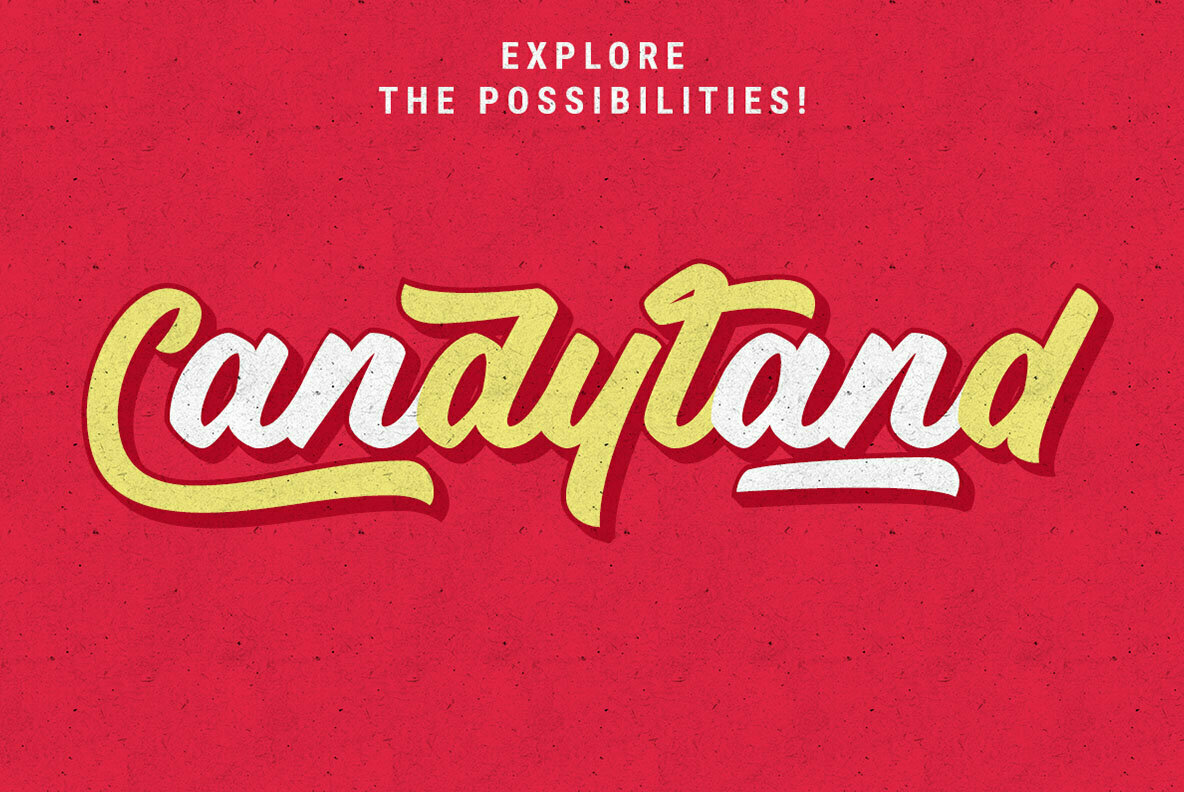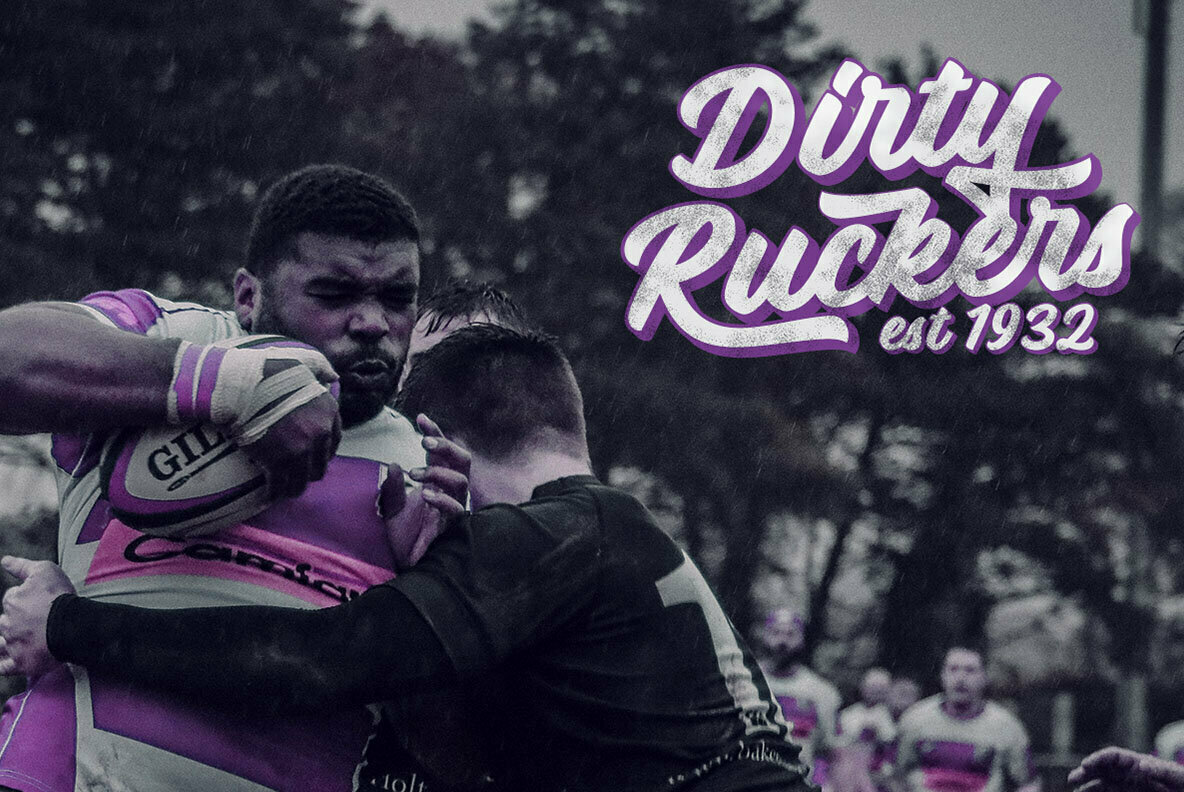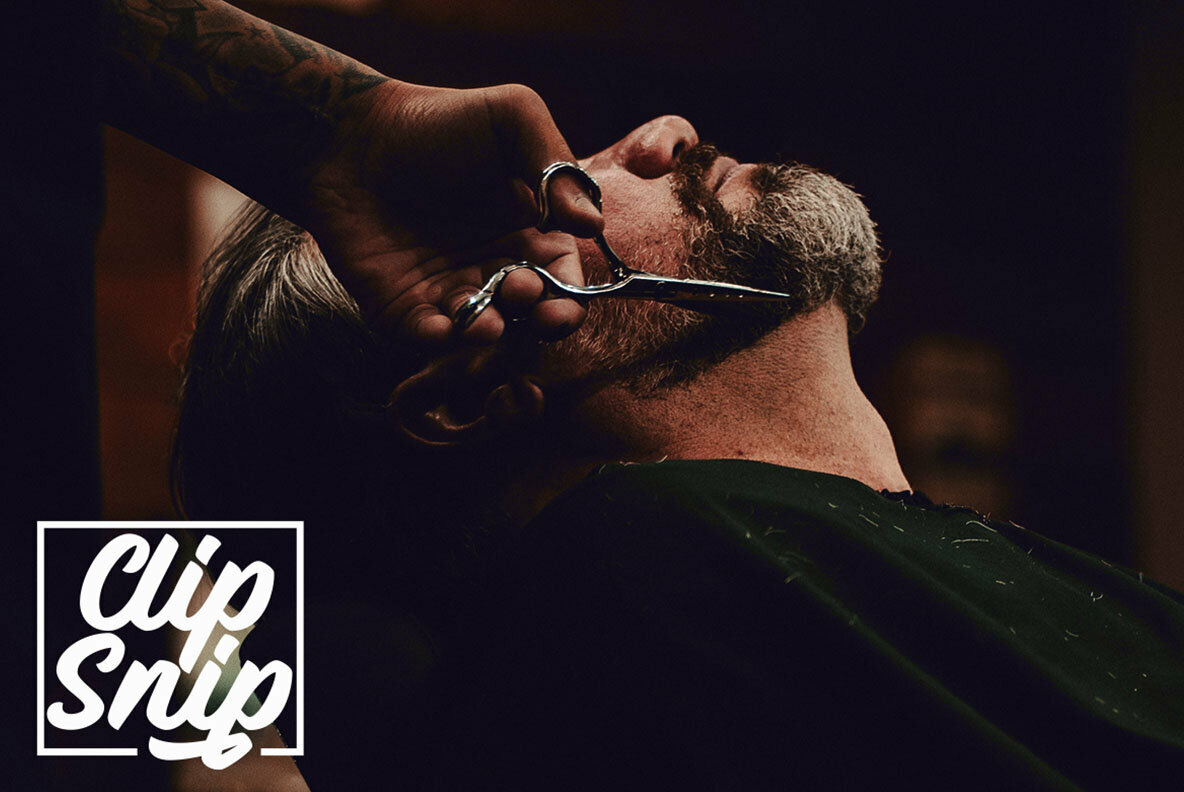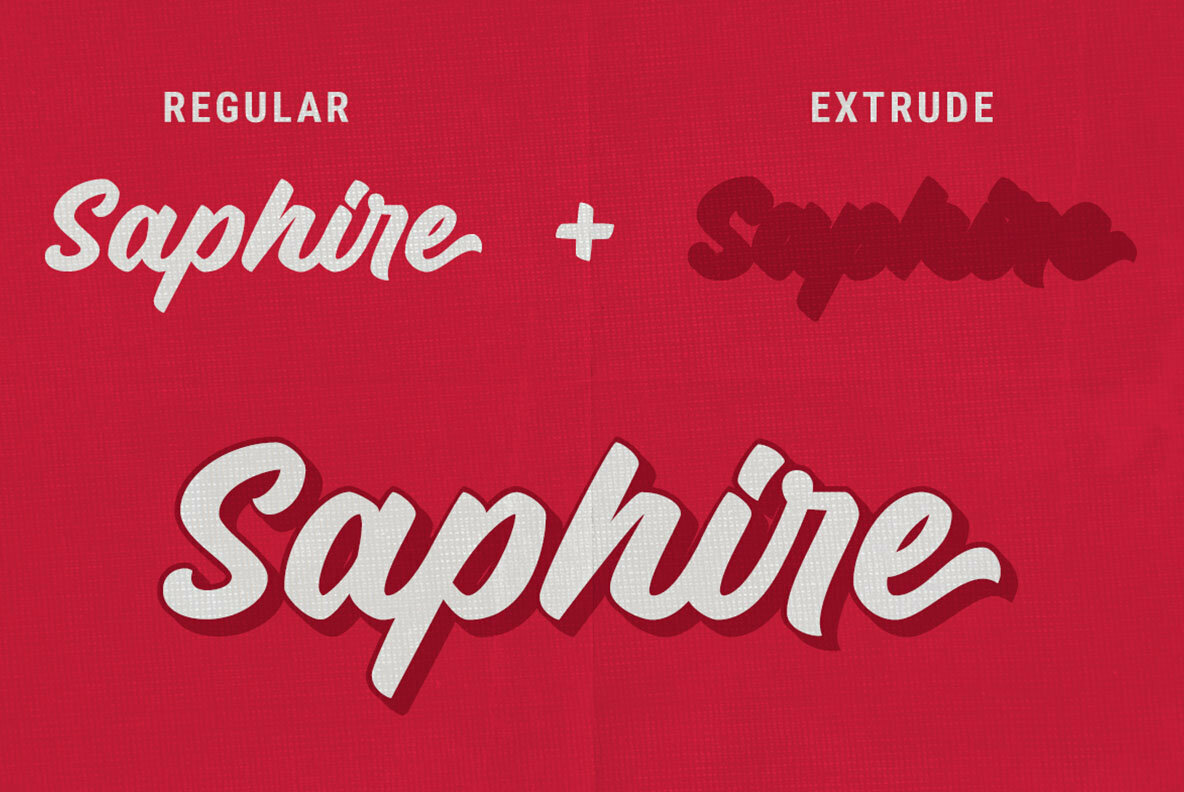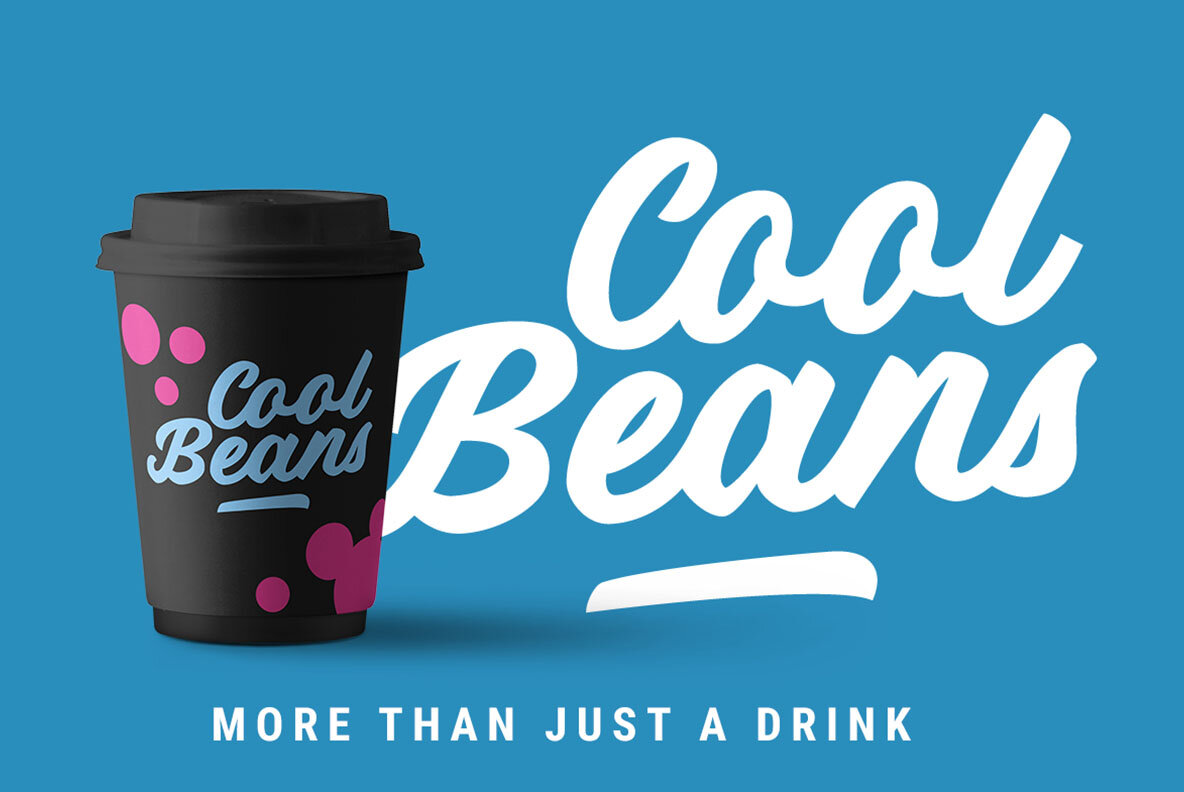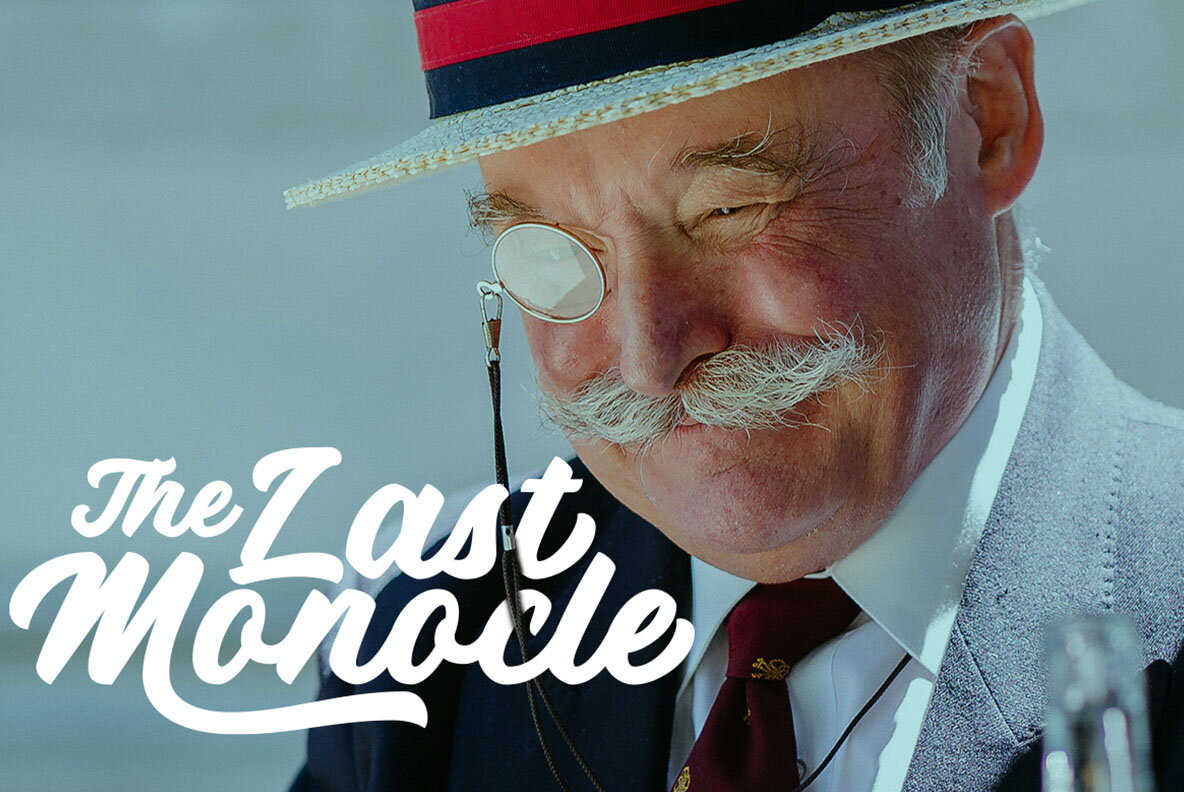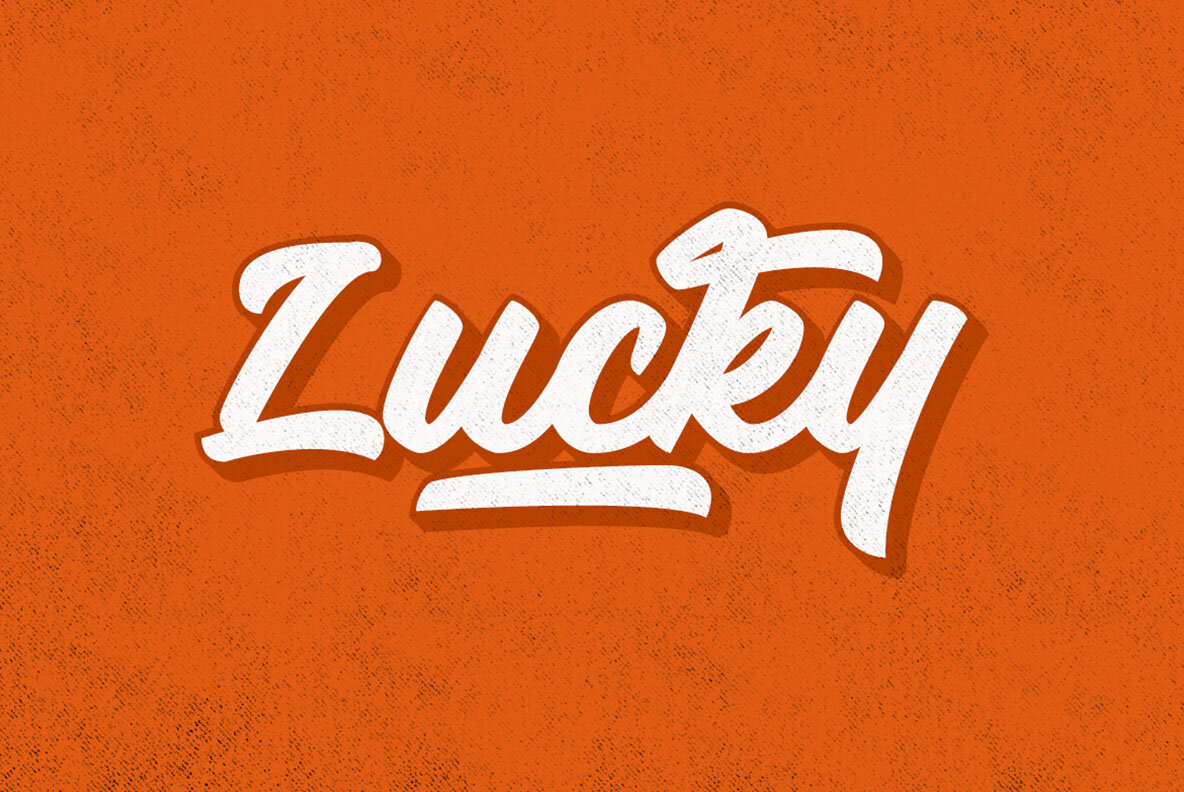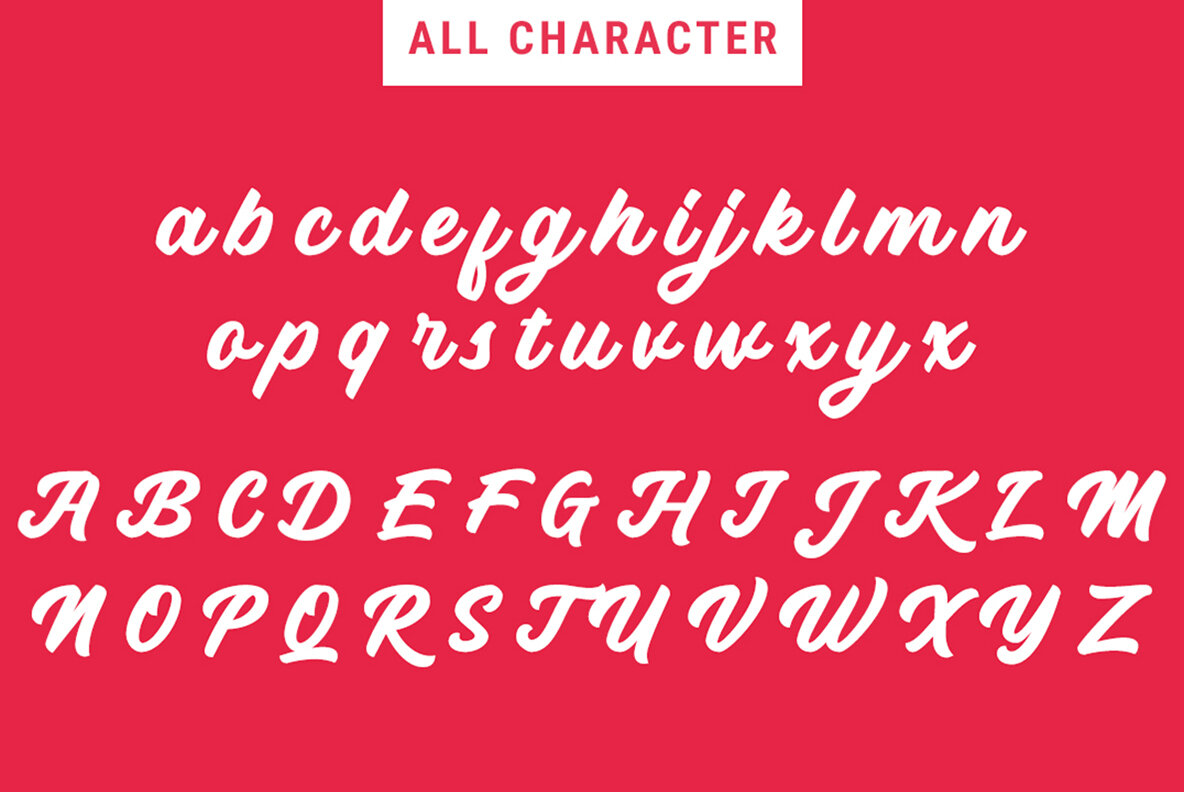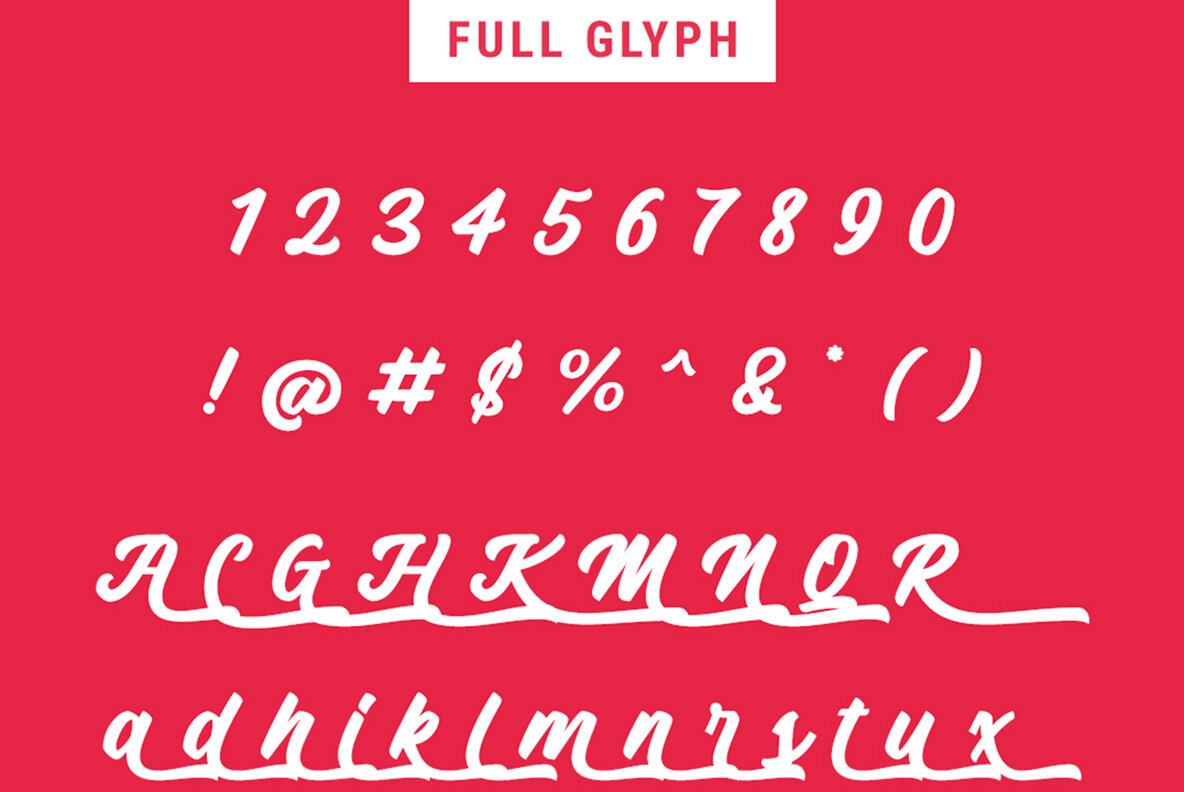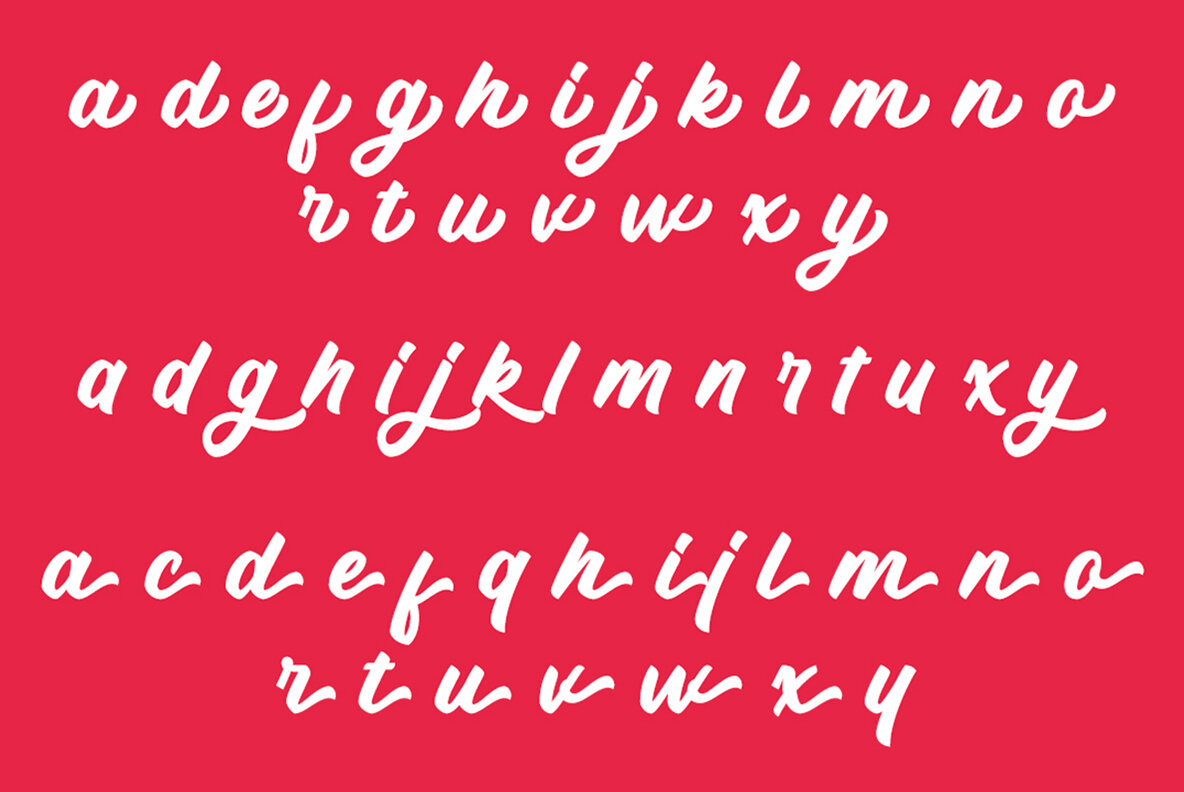
Hazel Clouds Font
Hazel Clouds offers a contemporary take on script typography, making it an excellent choice for anyone seeking a modern aesthetic. With its sleek design, this font is a perfect fit for branding, headlines, apparel design, and packaging. The font features over nine stylistic alternates, providing ample opportunities to personalize your work. Multilingual support further enhances its utility, catering to a global audience. Features:Hazel Clouds: Modern Script Font for Versatile Uses